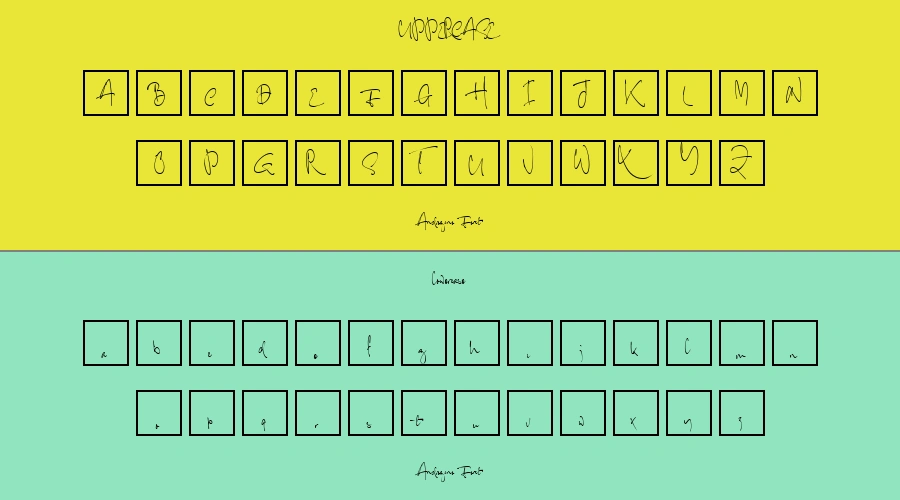
About Androgino Font
When typographic excellence matters most, Androgino Font delivers through its thoughtful blend of calligraphic strokes and functional clarity. Specially crafted for architectural plans, it offers the consistency and technical precision required for sophisticated design work. Every detail serves a purpose.
The character set showcases thoughtful details like rounded apexes alongside functional terminal forms. This proves especially valuable in event graphics, where readability directly influences results. Particular attention was paid to x-height and lifestyle alignment during development.